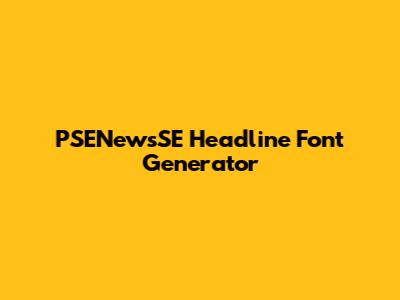
Are you looking to create eye-catching headlines that grab attention? The PSENewsSE Headline Font Generator is here to help you design titles that stand out. In this article, we will explore how to use this tool effectively, its features, and why it is essential for content creators, marketers, and anyone looking to make a strong visual impact with their text.
What is the PSENewsSE Headline Font Generator?
The PSENewsSE Headline Font Generator is a tool designed to help users create visually appealing and engaging headlines. It provides a variety of font options, styles, and customization features that allow you to tailor your text to suit your specific needs. Whether you're working on a blog post, social media update, or marketing campaign, this generator can help you produce headlines that capture the essence of your message and attract your audience.
Key Features
Variety of Fonts: The generator offers a wide selection of fonts, from classic styles to modern and unique designs. This ensures that you can find the perfect font to match the tone and style of your content.
Customization Options: You can adjust the size, color, and spacing of your text to create a headline that is visually appealing and easy to read. Experiment with different combinations to find the perfect look for your project.
Real-Time Preview: The generator provides a real-time preview of your headline as you make changes. This allows you to see exactly how your text will look before you finalize your design.
Easy to Use Interface: The user-friendly interface makes it simple to create stunning headlines, even if you have no prior design experience. The intuitive controls and clear instructions guide you through the process, ensuring a smooth and efficient workflow.
Download and Share: Once you've created your perfect headline, you can easily download it in various formats or share it directly on social media platforms. This makes it easy to integrate your custom headlines into your projects and campaigns.
Benefits of Using a Headline Font Generator
Enhanced Visual Appeal: A well-designed headline can significantly enhance the visual appeal of your content. By using a font generator, you can create headlines that are both eye-catching and professional-looking.
Improved Readability: The generator allows you to adjust the size, color, and spacing of your text to ensure that your headlines are easy to read. This is particularly important for online content, where readers often skim through text quickly.
Increased Engagement: A compelling headline can capture the attention of your audience and encourage them to engage with your content. By using a font generator, you can create headlines that are both informative and attention-grabbing.
Time-Saving: Creating custom headlines manually can be a time-consuming process. A font generator automates this process, allowing you to create stunning headlines in a matter of minutes.
Cost-Effective: Hiring a professional designer to create headlines can be expensive. A font generator provides a cost-effective alternative, allowing you to create high-quality headlines without breaking the bank.
How to Use the PSENewsSE Headline Font Generator
Using the PSENewsSE Headline Font Generator is a straightforward process. Here’s a step-by-step guide to help you get started:
Step 2: Enter Your Headline Text
Next, locate the text input field in the generator interface. Type in the headline text you want to customize. Make sure your text accurately reflects the content it represents.
Step 3: Choose Your Font
Then, browse through the available font options. The PSENewsSE Headline Font Generator typically offers a wide variety of fonts, ranging from classic serif fonts to modern sans-serif styles. Select a font that matches the tone and style of your content. For instance, a formal article might benefit from a traditional serif font, while a modern blog post could use a sleek sans-serif font.
Step 4: Customize Your Headline
After that, use the customization options to adjust the appearance of your headline. You can modify the font size to ensure readability, change the color to match your branding or the theme of your content, and adjust the letter spacing to improve visual appeal. Experiment with different settings to find the perfect combination that makes your headline stand out.
Step 5: Preview Your Headline
Subsequently, take advantage of the real-time preview feature. As you make changes, the generator will display a preview of your headline. This allows you to see exactly how your headline will look before you finalize it. Pay attention to how the font, size, color, and spacing work together to create an engaging visual.
Step 6: Download or Share Your Headline